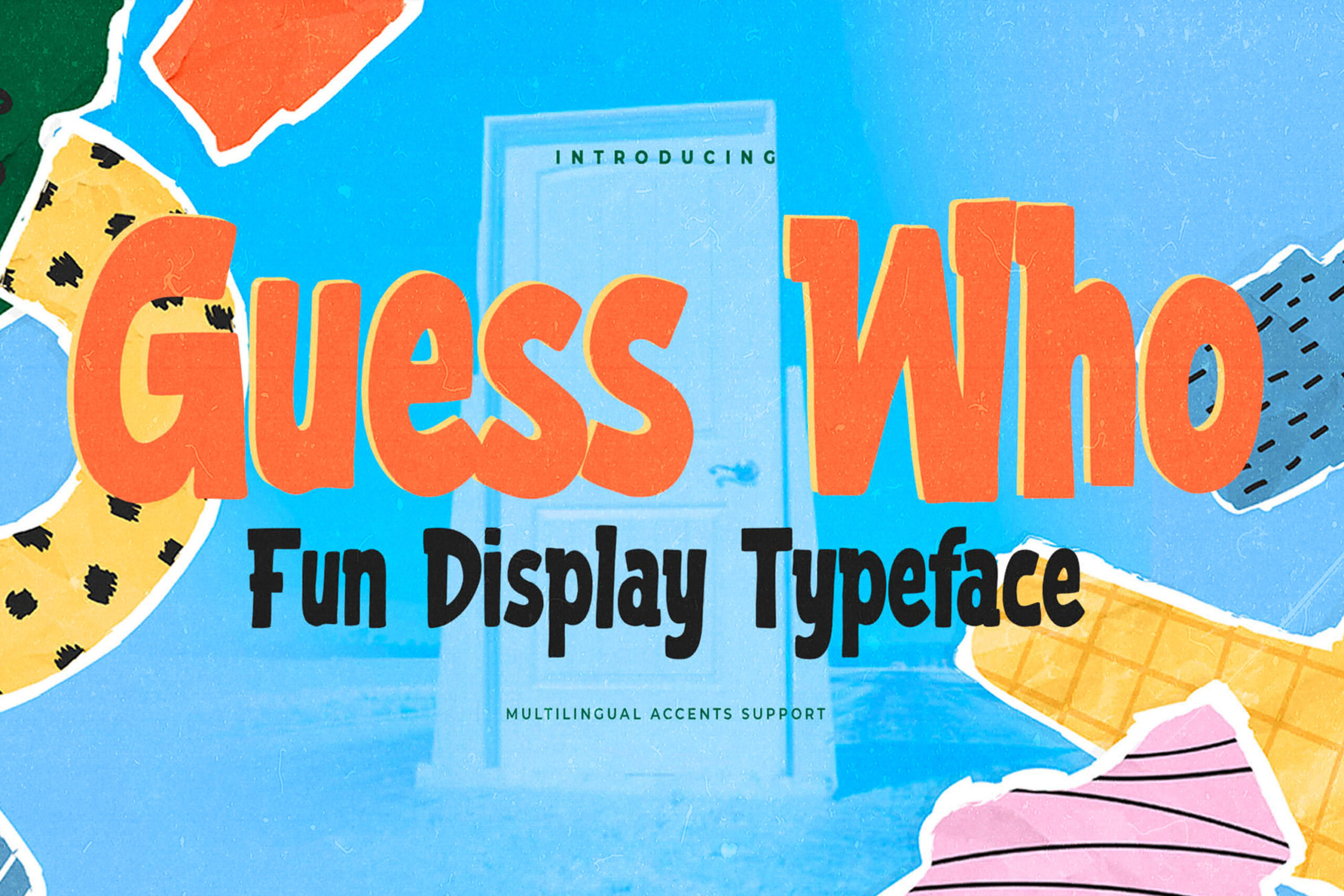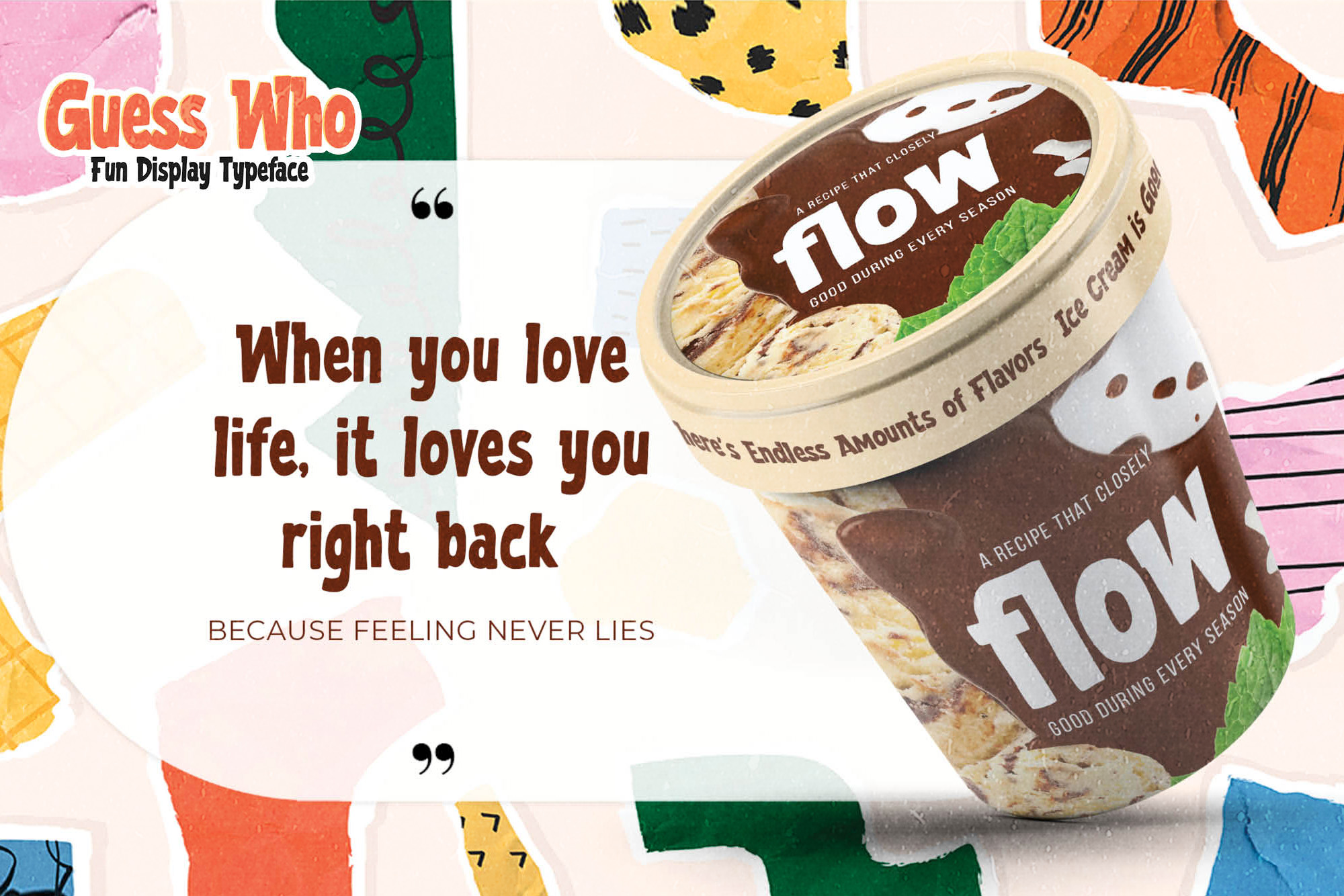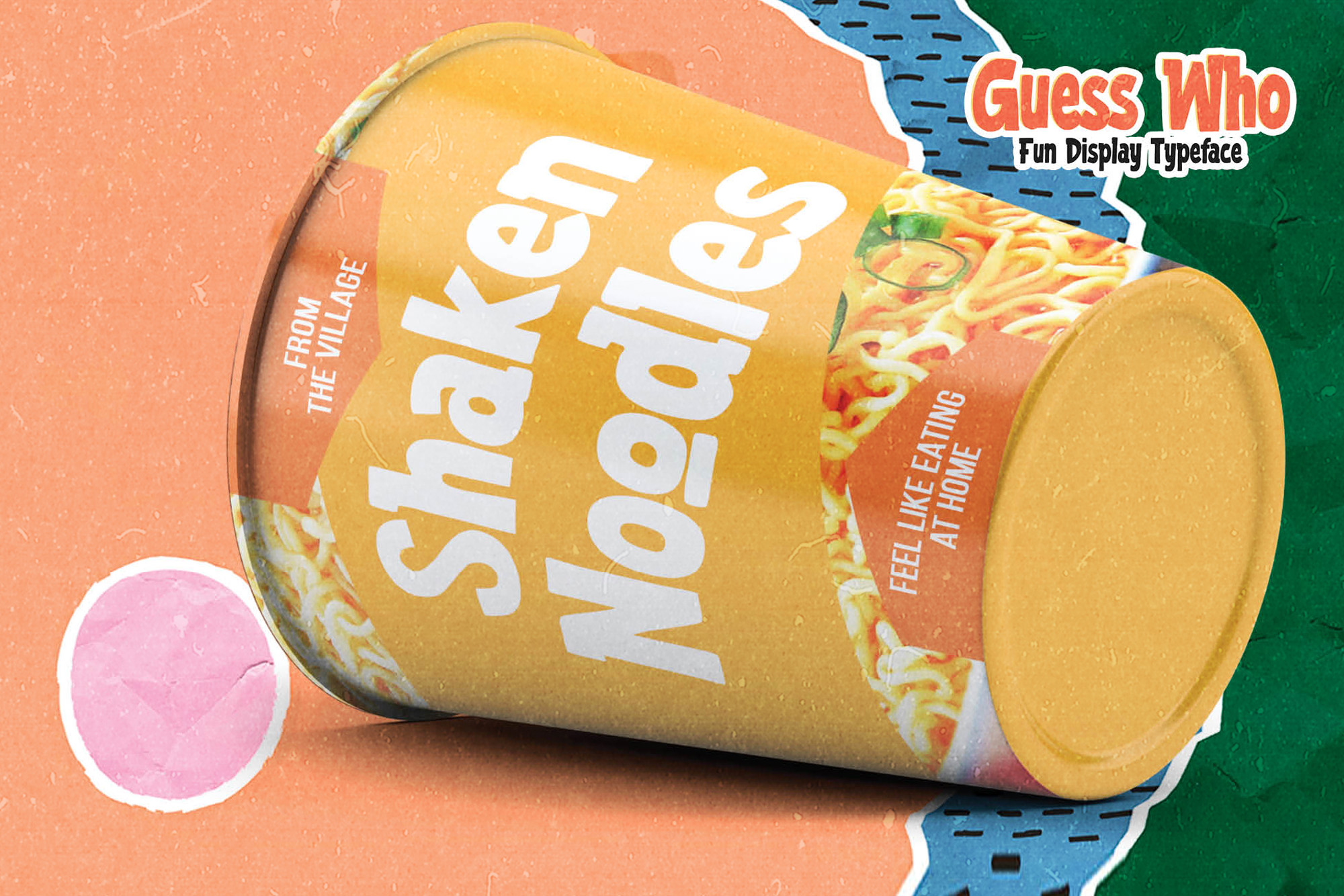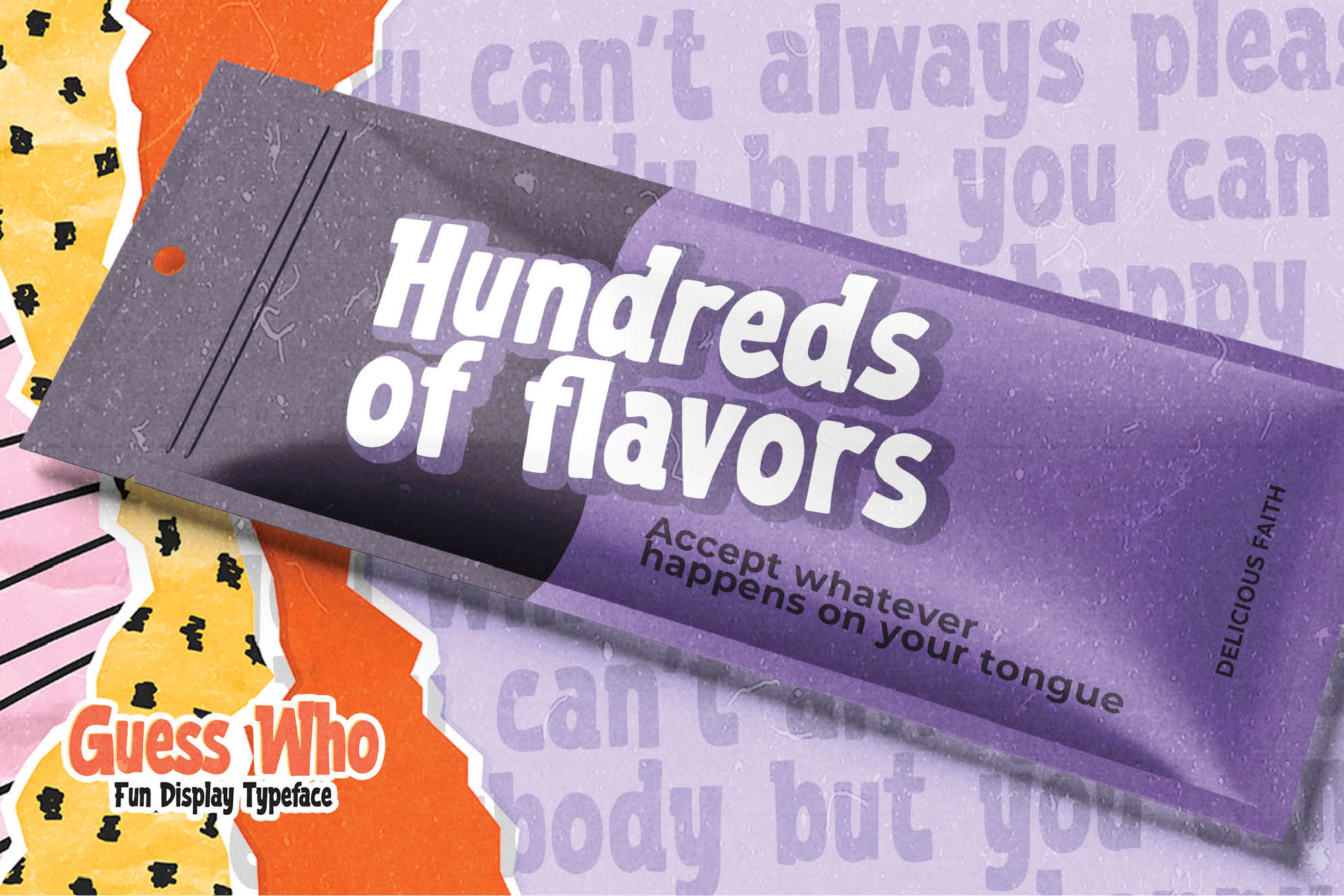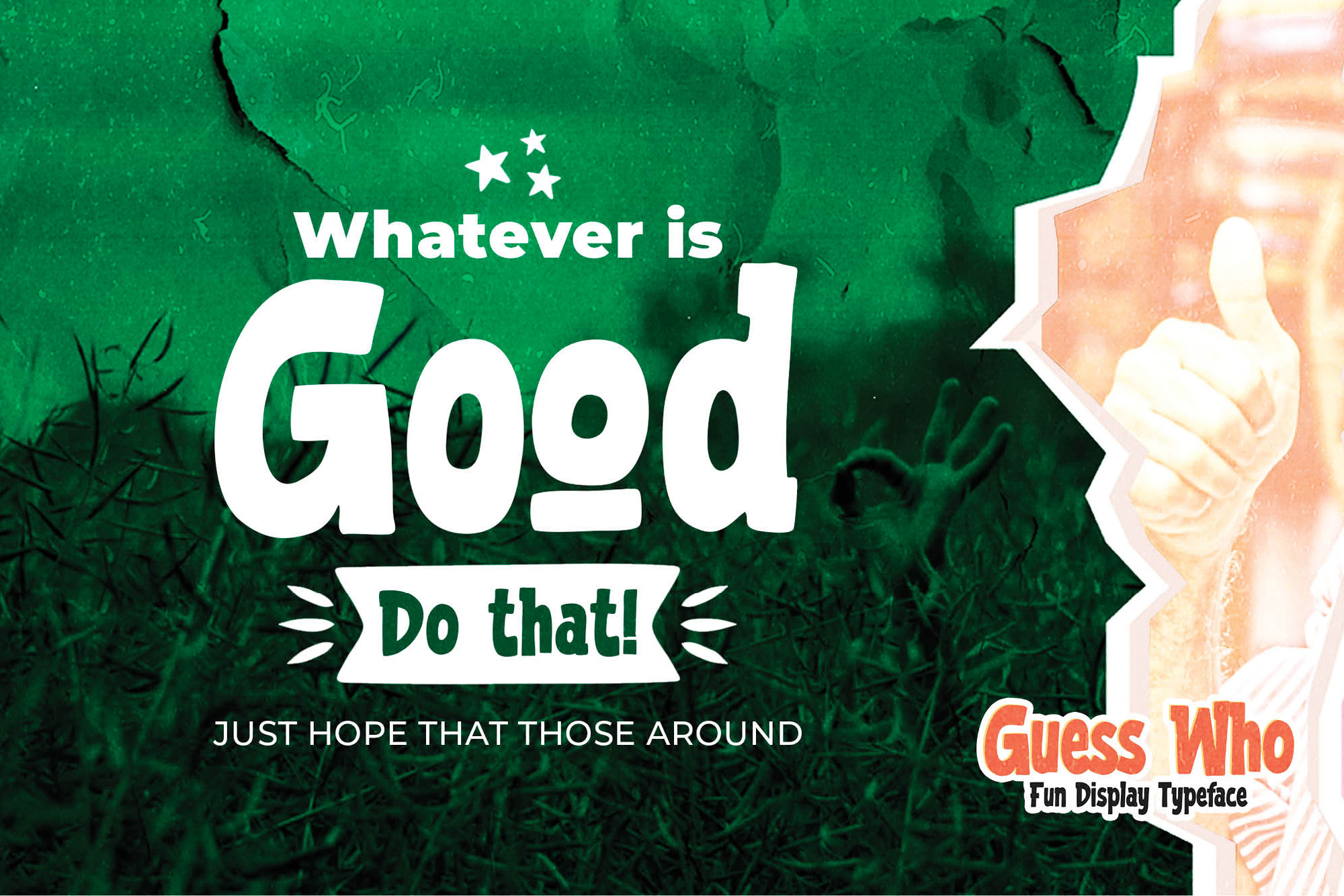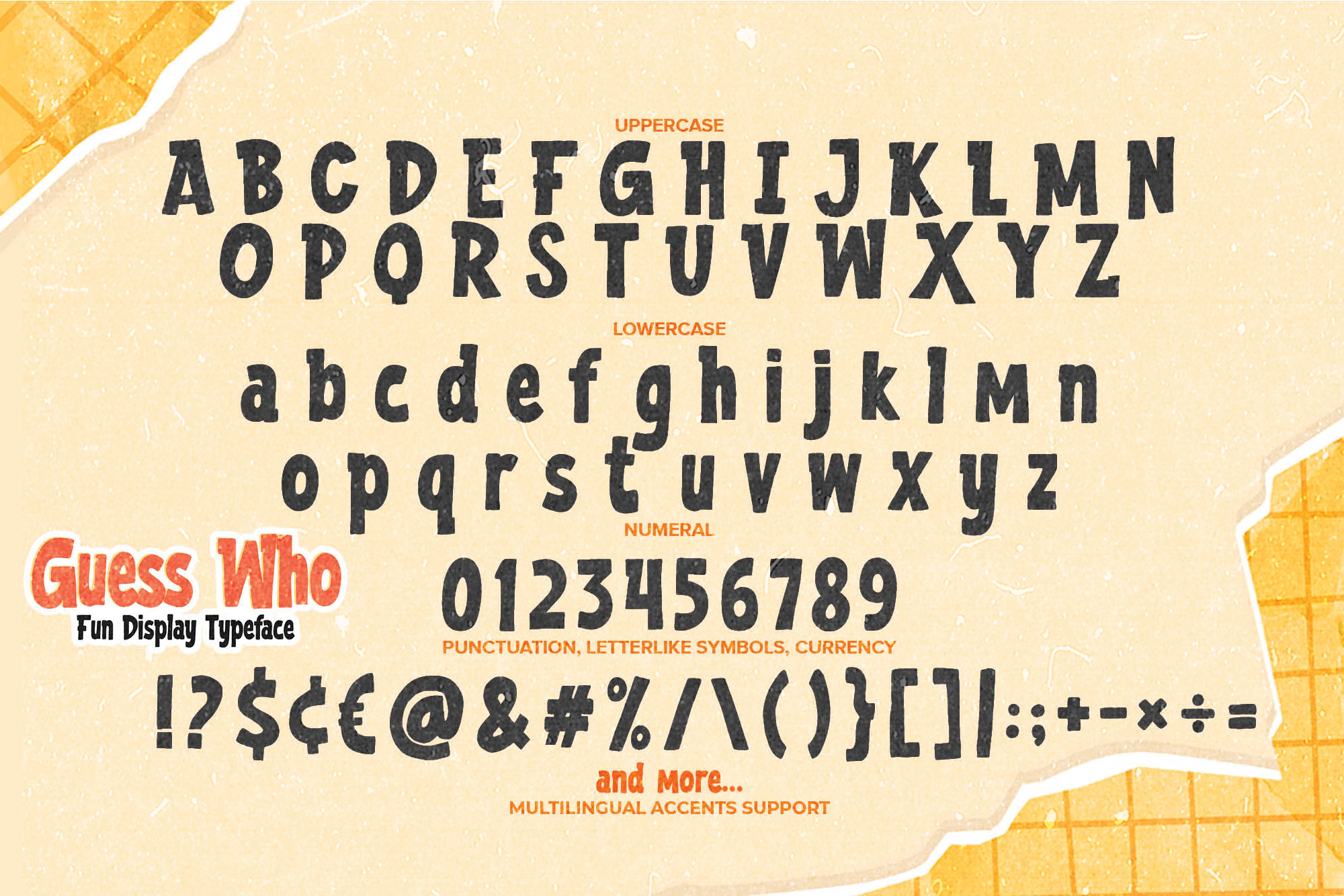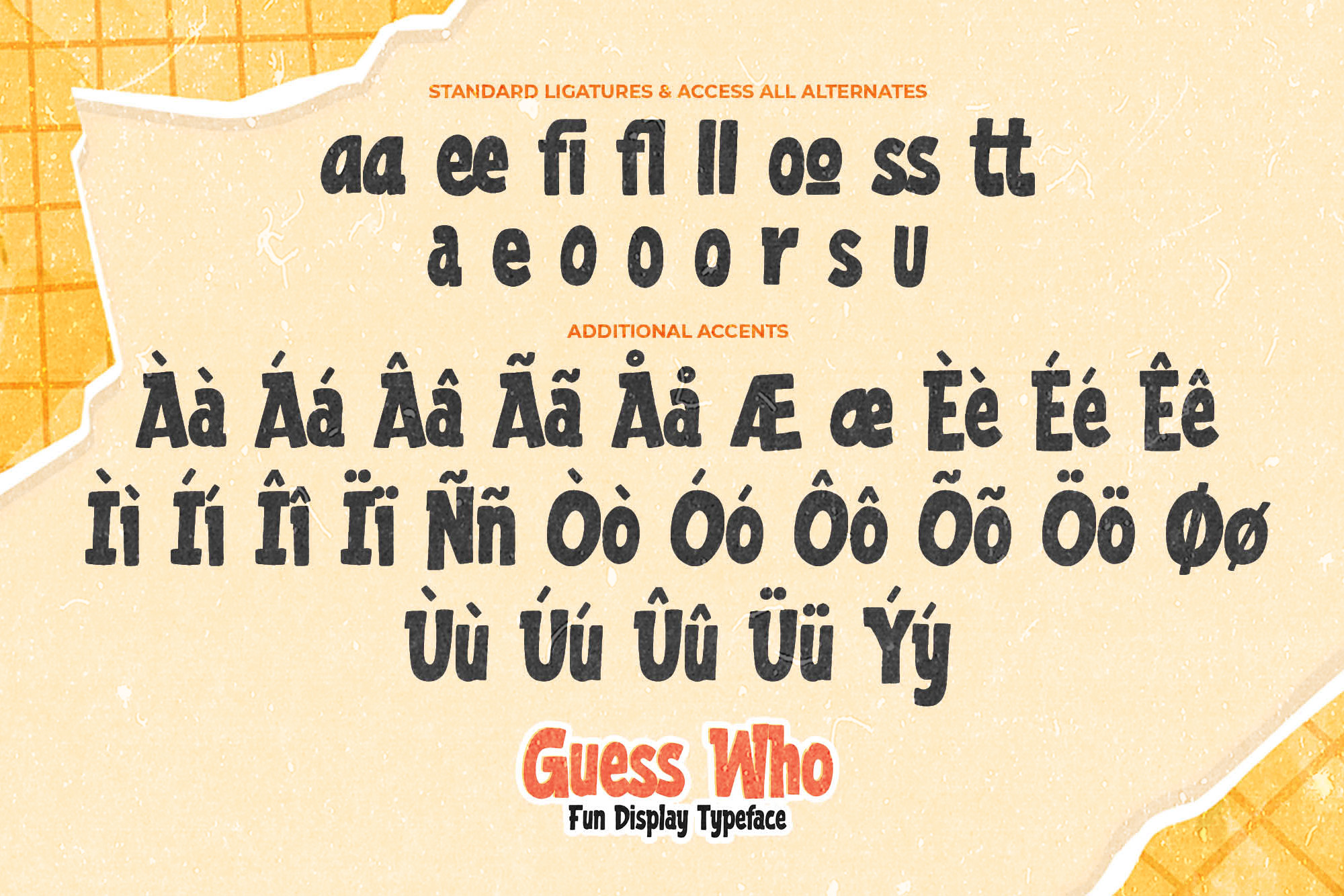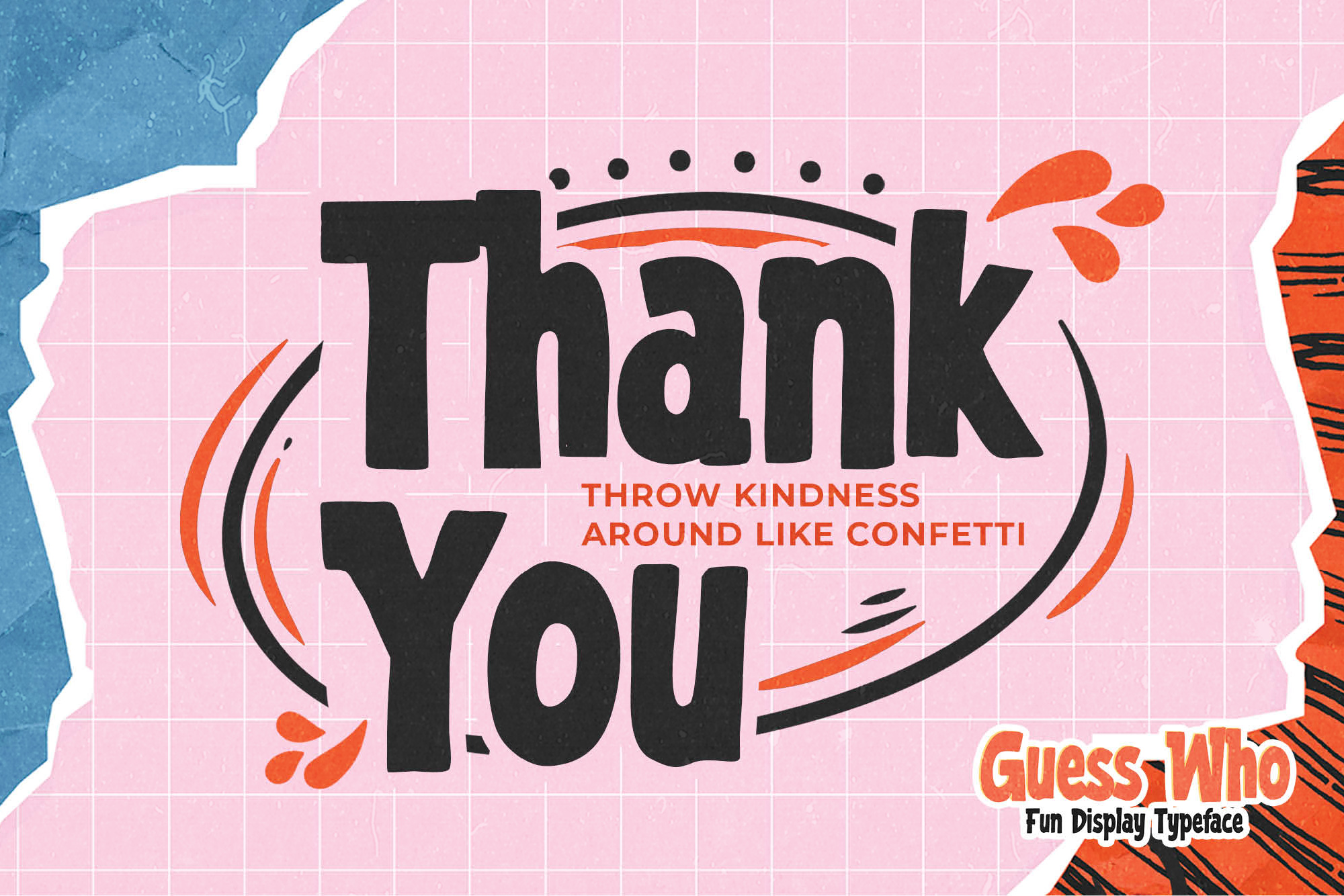
Guess Who – Fun Display Typeface , modern style and dramatic movement that is written casually and quickly.
The best for labels food ,poster,project ,designs look modern, authentic and fun. It’s perfect for labels, quotes, posters, DIY projects, branding, packaging, greeting cards, websites, photography overlays, signs, scrapbooking, tags and so much more! That is why Guess Who has a textured, and unique characteristic more natural look. You can activate Ligatures and Alternates glyphs OpenType panel.